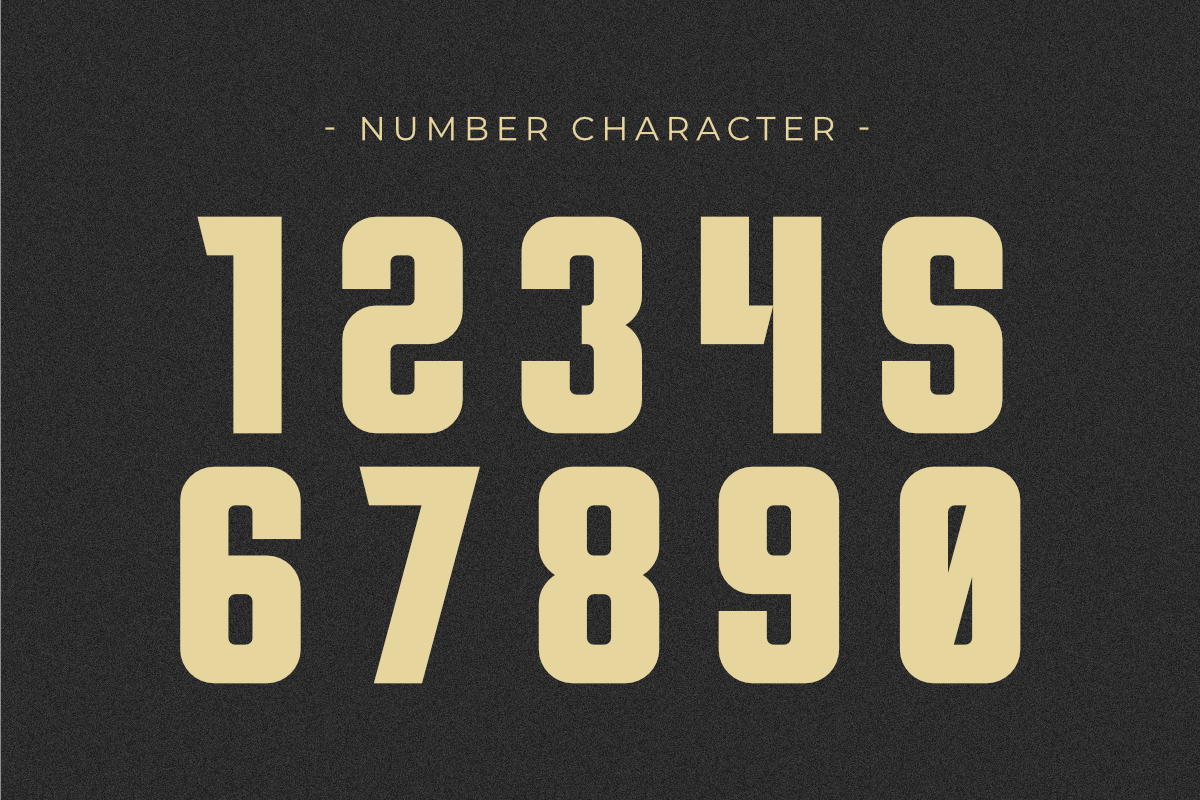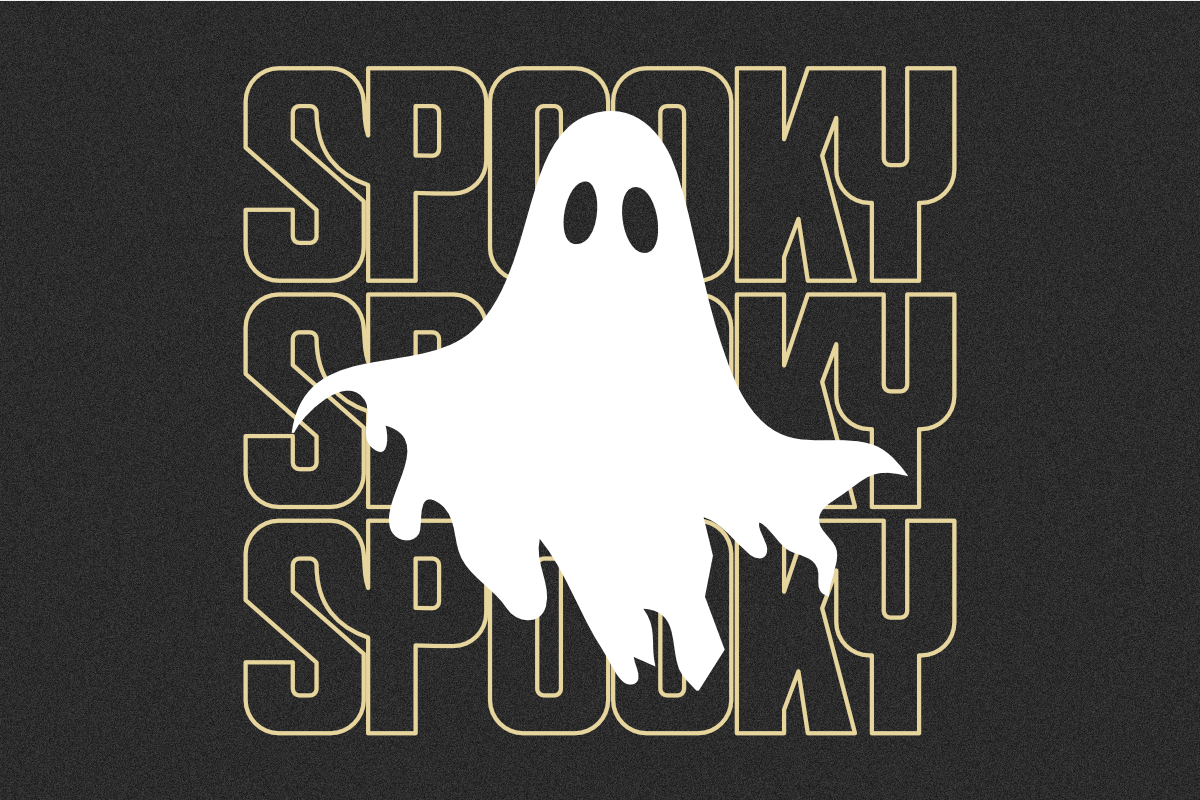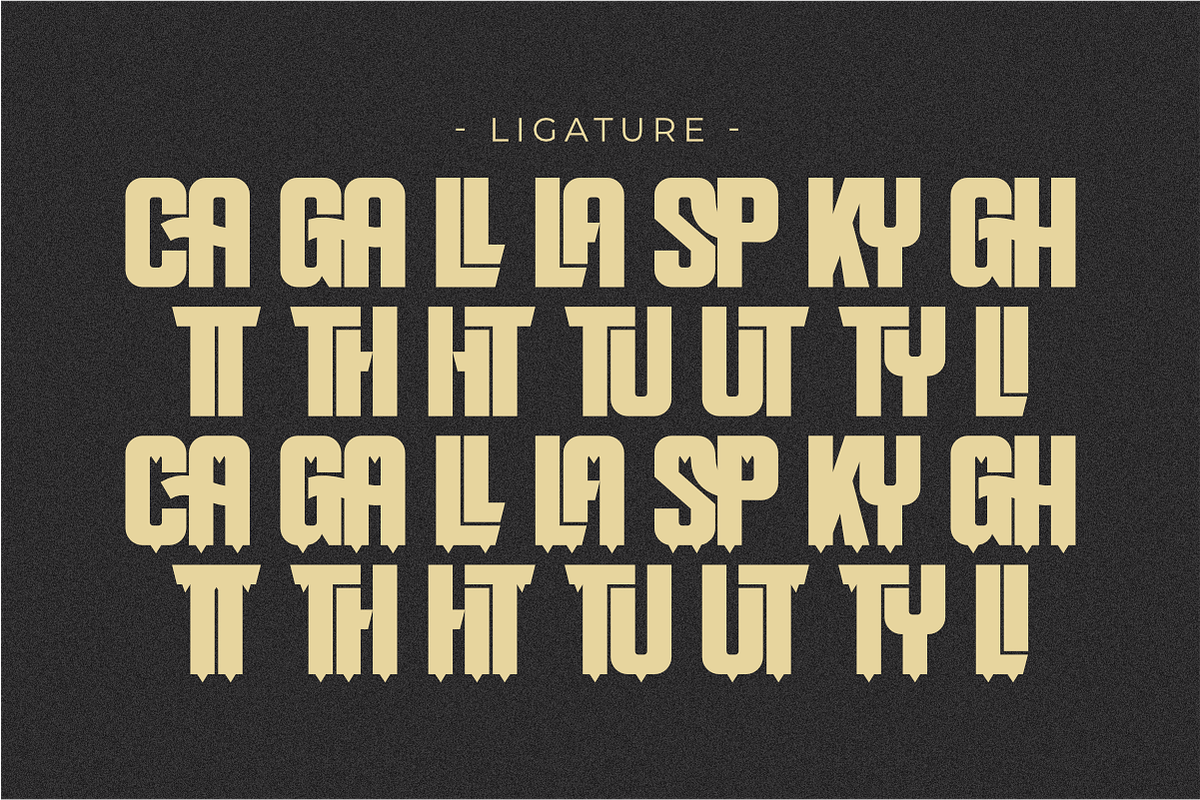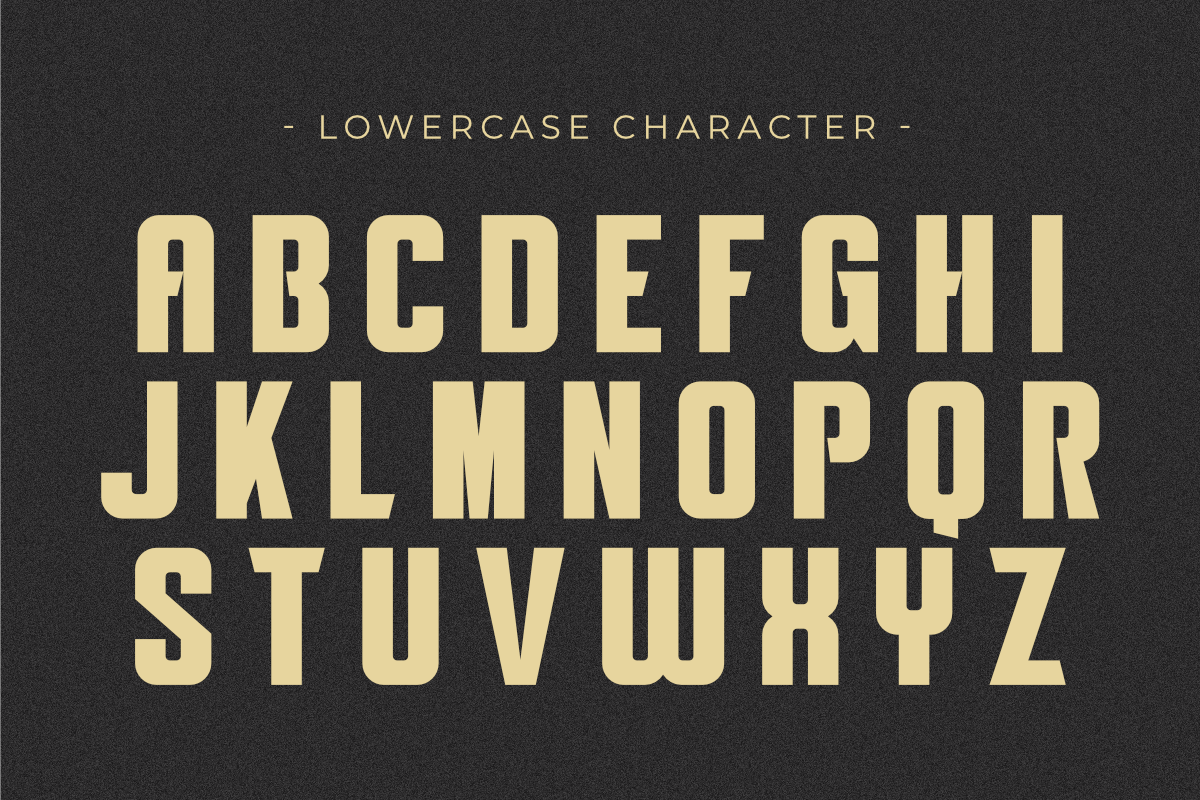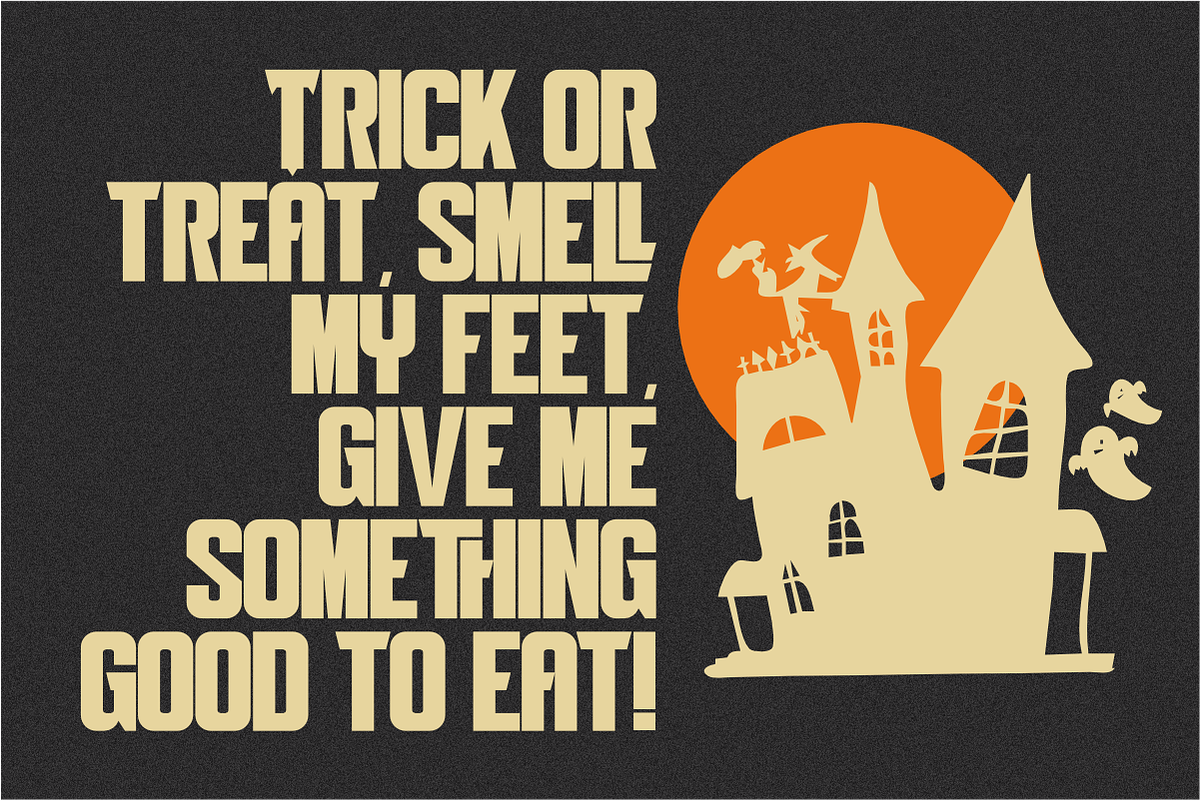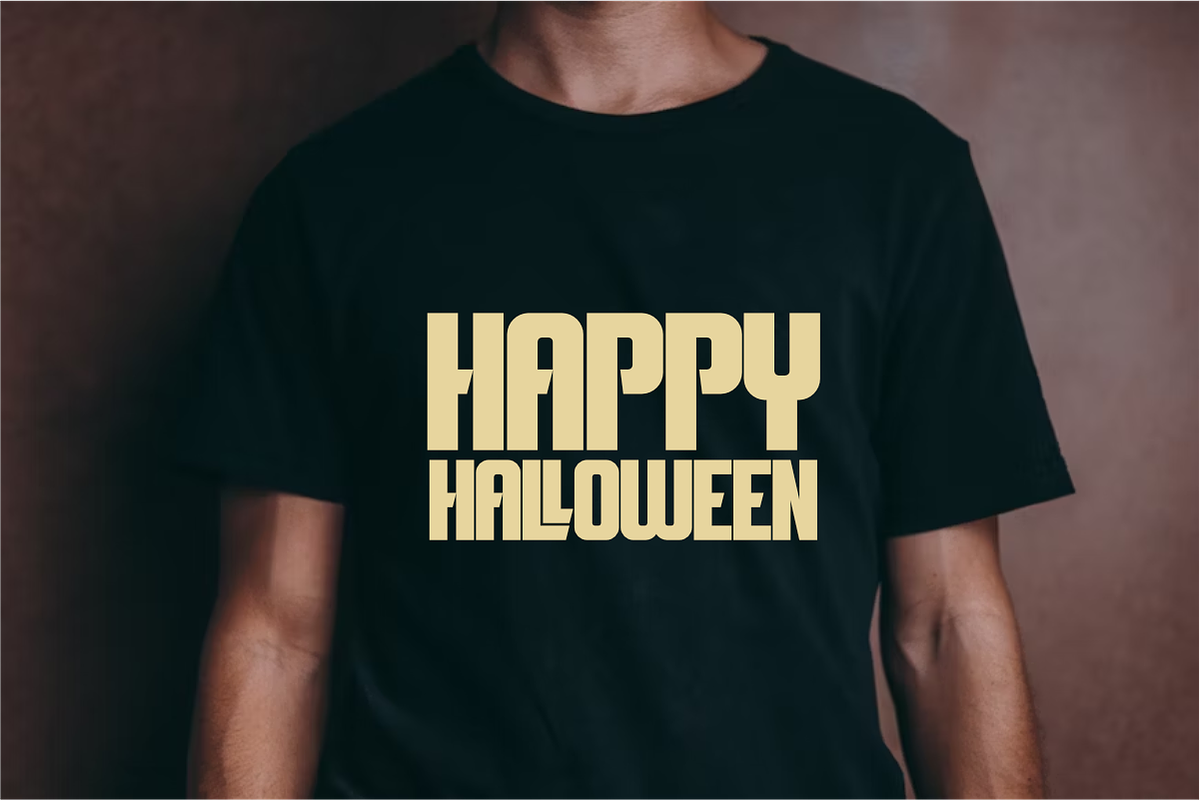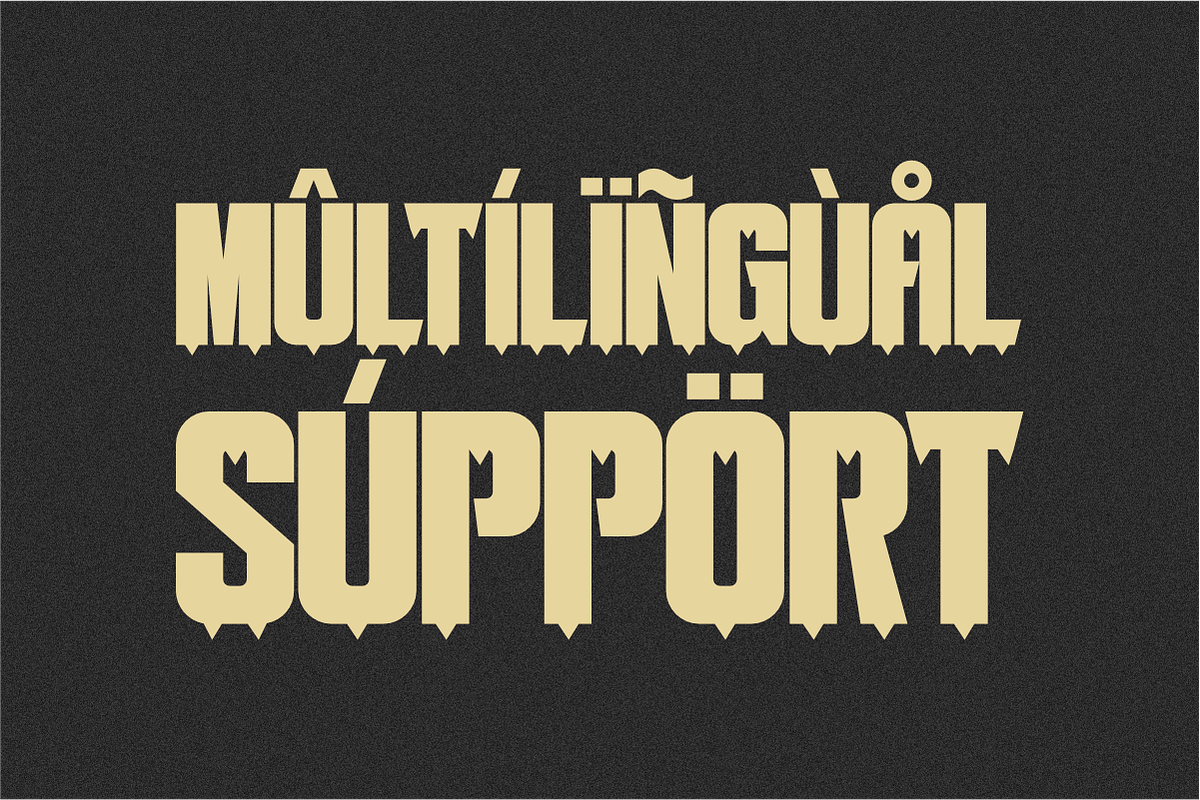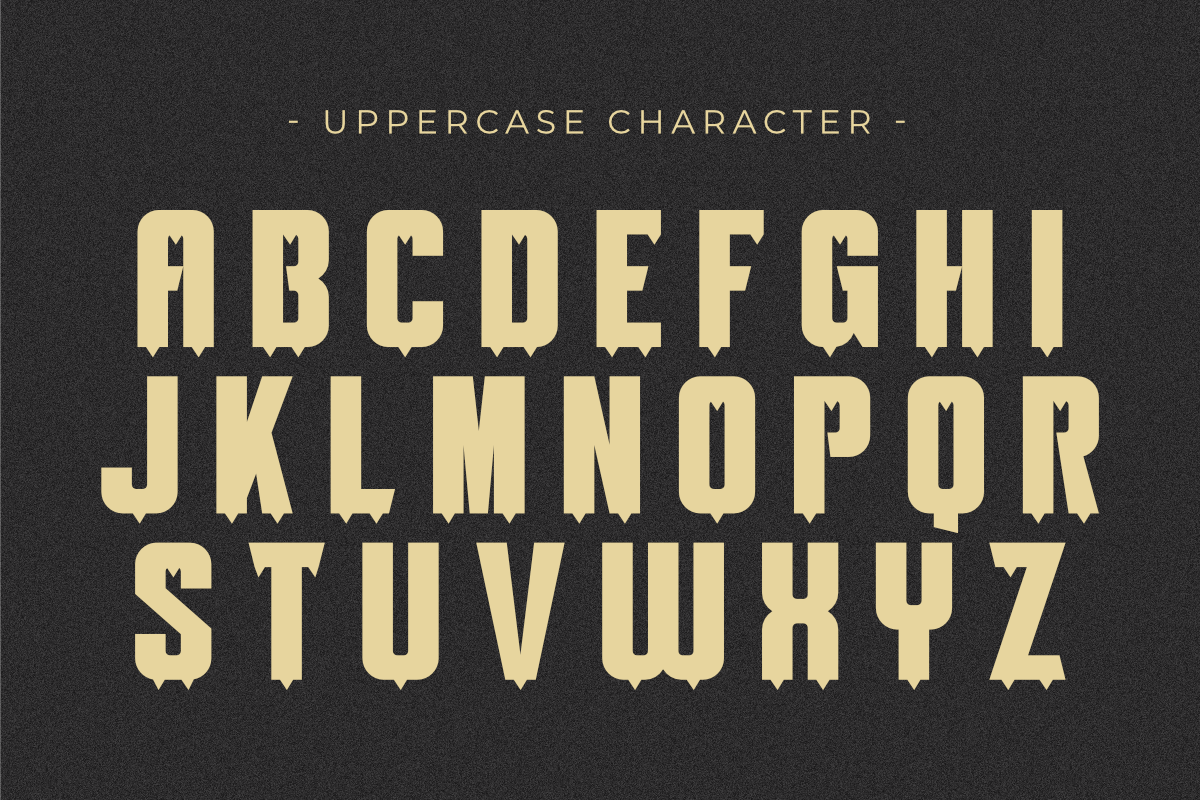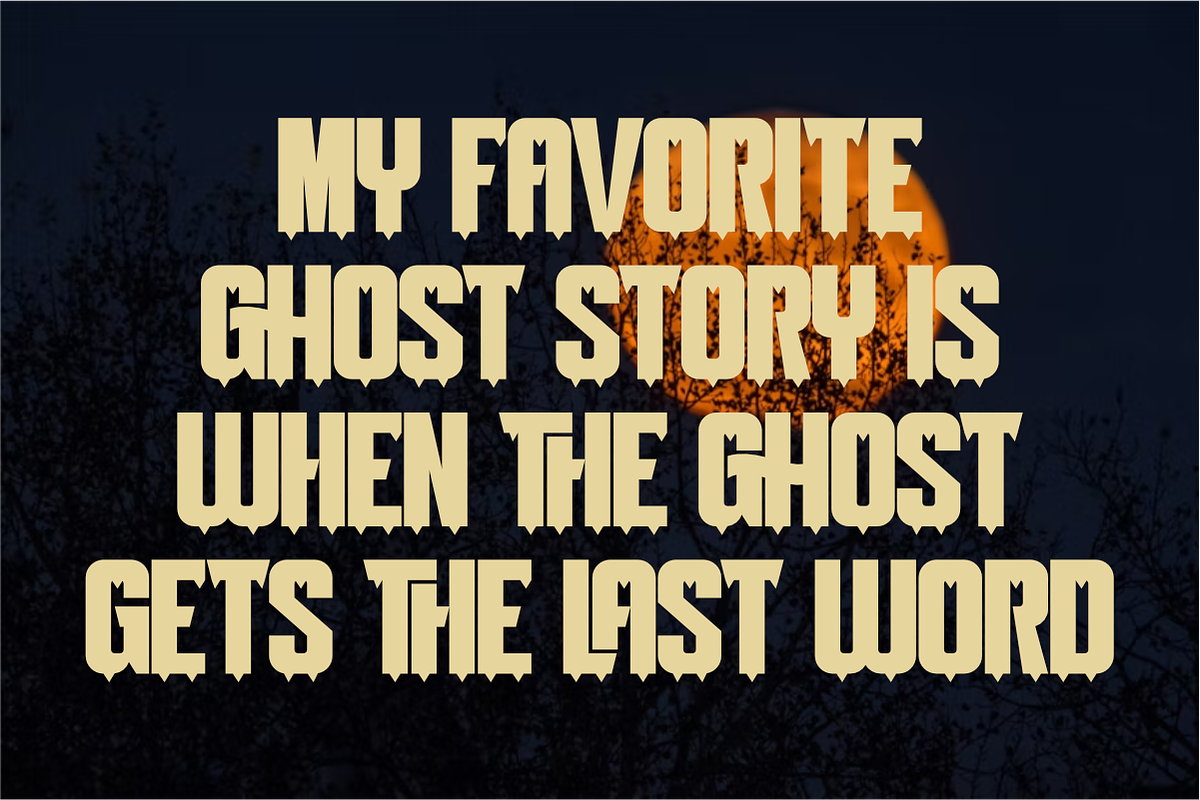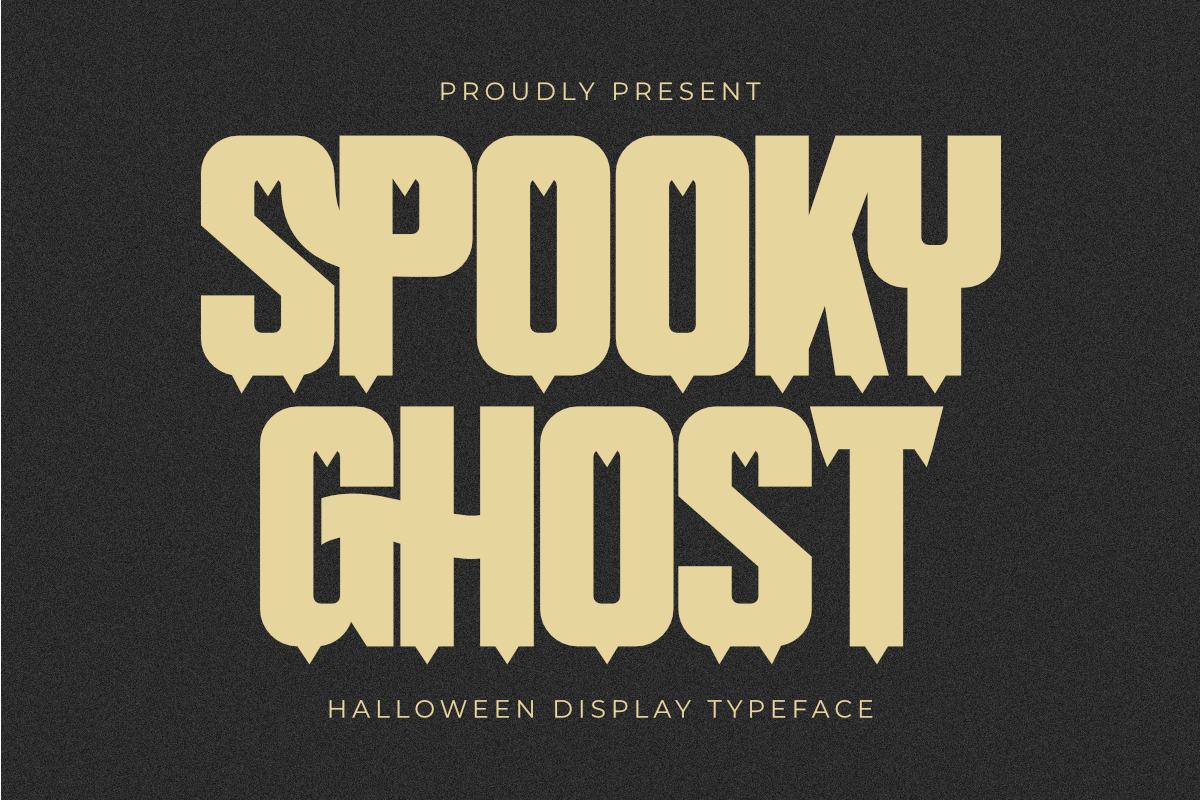
Spooky Ghost - Halloween Display
Spooky Ghost is a condensed vintage decorative typeface that captures the essence of Halloween. This bold display font features sharp, jagged serifs and a distinctly eerie character, making it perfect for creating a haunted and playful atmosphere. It is ideal for T-shirt designs, posters, branding, party invitations, and all things spooky season.